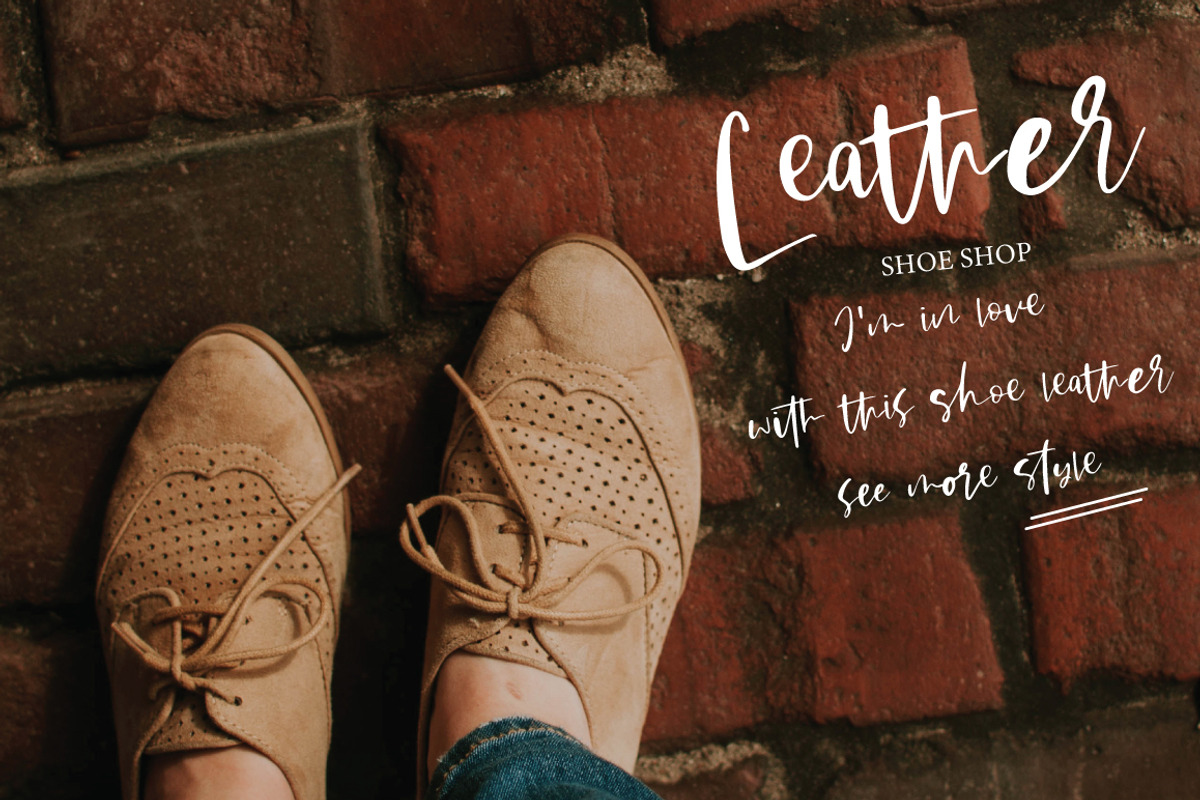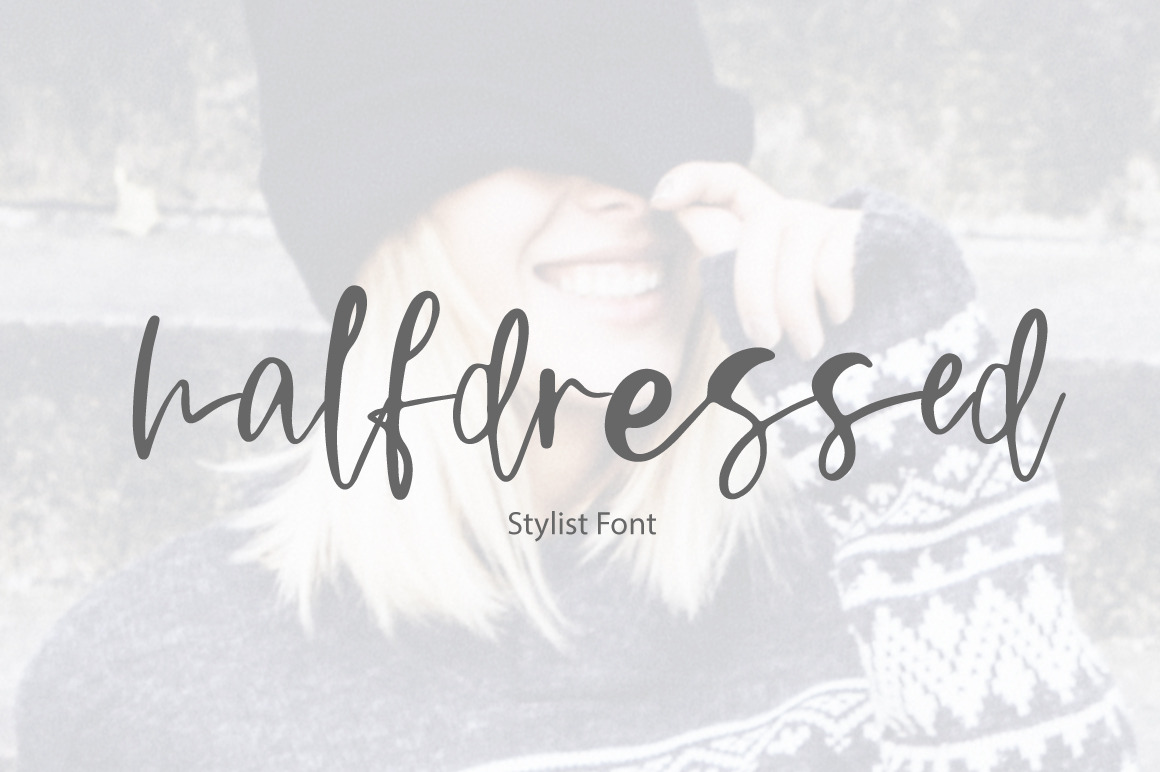
Halfdressed | stylist font
Halfdressed is a classic script font.
Every single letter has been creative carefully and Perfectly for every project. This font is a little romantic script designed for making your set of invitations, quotes, blog posts, and more completely beautiful
The script has alternates upper and lowercase character set Normal ligatures bb dd ee ff gg ll mm nn oo pp rr ss tt th sh st es er fi gy or